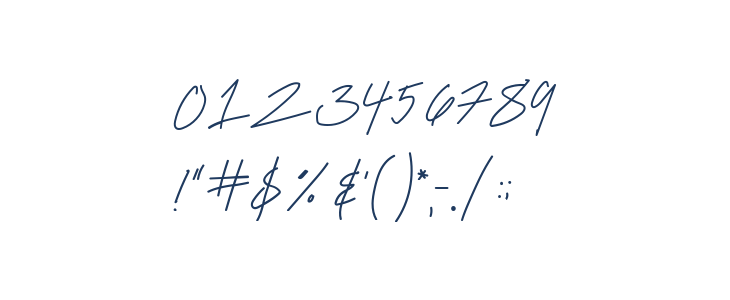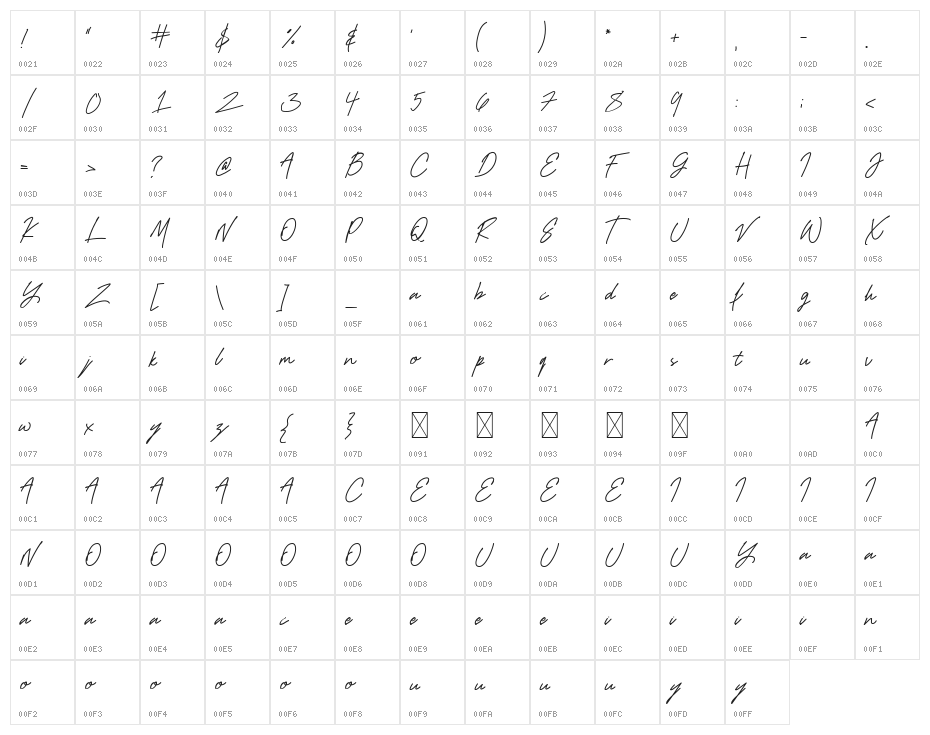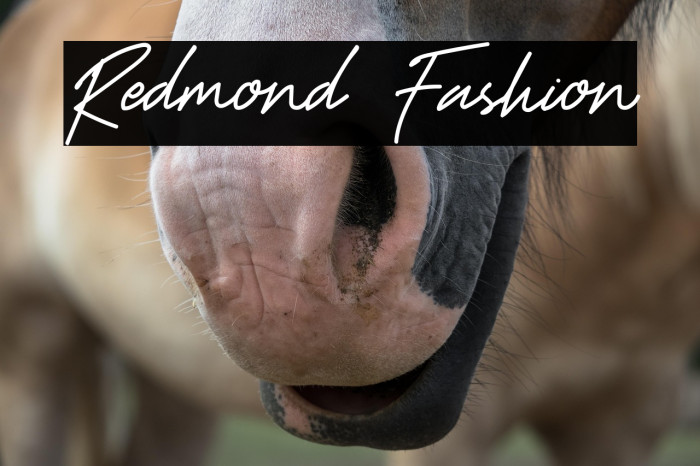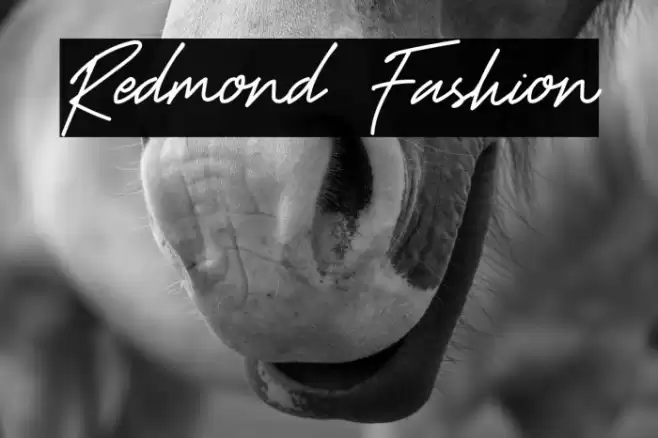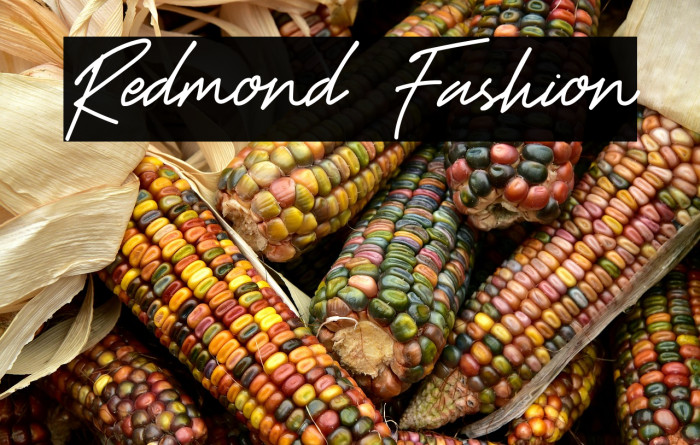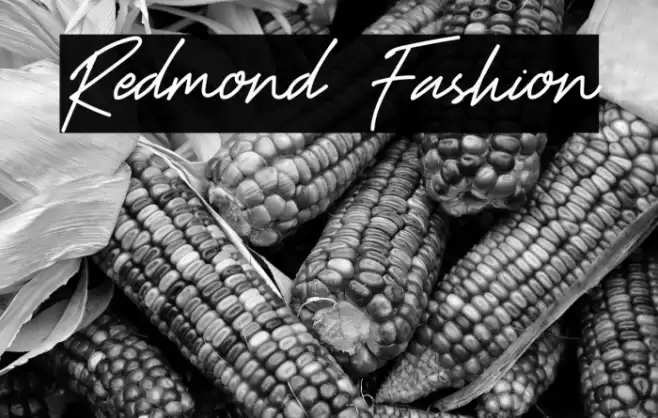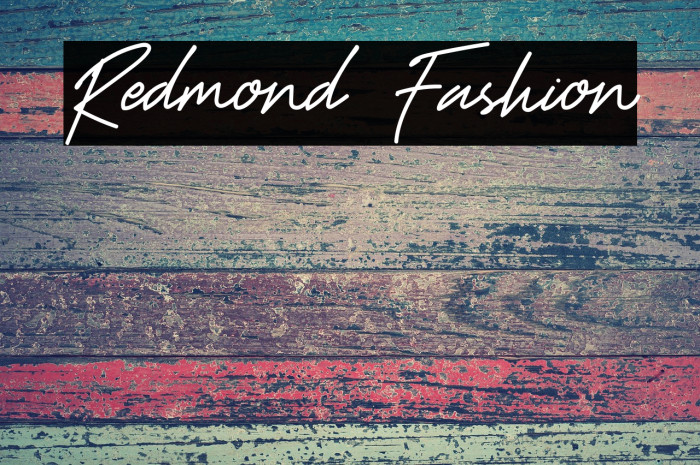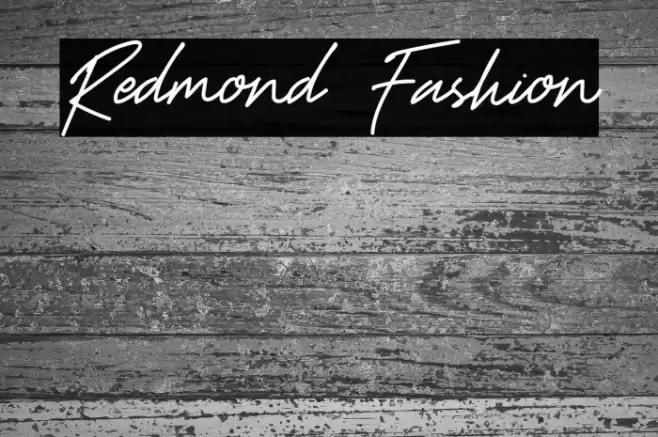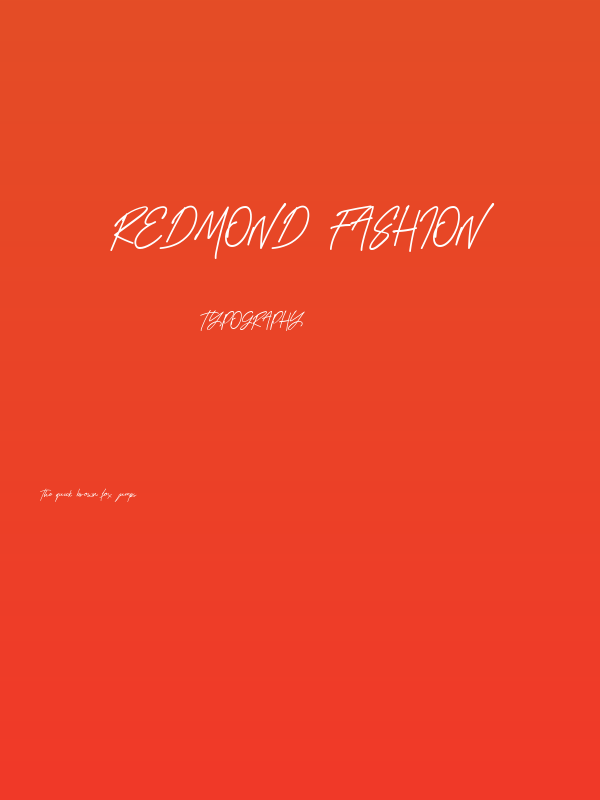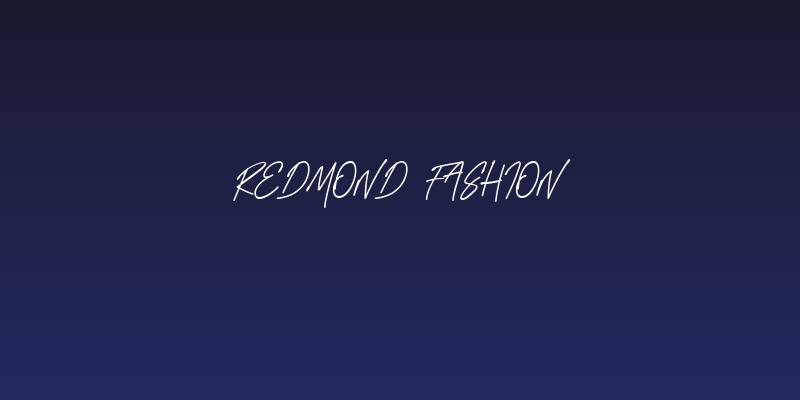
Redmond Fashion Font
Redmond Fashion Description
This font exudes a stylish and modern handwritten aesthetic, characterized by its fluid and cursive strokes. The letters are elegantly connected, giving a sense of continuity and flow. The uppercase letters maintain a consistent height, while the lowercase letters exhibit a slight slant, enhancing the handwritten feel. The numerals are clear and distinct, matching the overall style of the alphabet. Special characters are well-integrated, maintaining the font's cohesive look. The overall appearance is both sophisticated and approachable, making it suitable for a variety of creative applications.